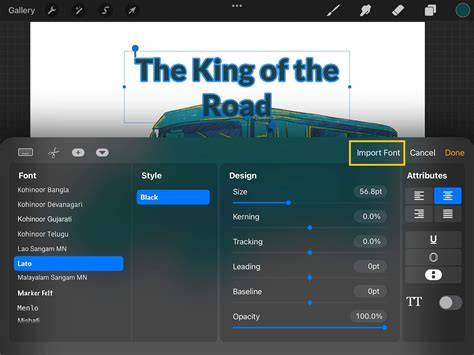
Best Fonts For Procreate Ipad In 2023
As an artist and designer, you need the right tools to perfect your craft. For digital art creation, the Procreate app is one of the most popular tools available. With the Procreate iPad app, you can create amazing digital art pieces with ease. To make your work even more unique and personalized, you can also use fonts. In this article we’ll be taking a look at some of the best Procreate fonts for iPad in 2023.
1. Meraki
Meraki is a beautiful script font that you can use to add a romantic and feminine touch to your artwork. The font is perfect for creating hand-drawn lettering, logos, quotes, and other artwork. Meraki comes with an alternate set of characters, ligatures, and swashes that you can use to add a unique touch to your work. The font also supports multiple languages, so you can easily use it for a wide variety of projects.
2. The Hustle
The Hustle is a bold and modern font that is perfect for creating eye-catching titles and headlines. The font has a unique and elegant style that can add a modern touch to your artwork. The font also has a unique set of characters and ligatures that you can use to customize your work. The font also supports multiple languages, so you can easily use it for a wide variety of projects.
3. Fireflies
Fireflies is a playful and fun font that is perfect for creating fun and whimsical artwork. The font has a unique and quirky style that can add a playful touch to your artwork. The font also has a unique set of characters and ligatures that you can use to customize your work. The font also supports multiple languages, so you can easily use it for a wide variety of projects.
4. Cinder Block
Cinder Block is a bold and modern font that is perfect for creating bold and striking titles and headlines. The font has a unique and edgy style that can add a modern touch to your artwork. The font also has a unique set of characters and ligatures that you can use to customize your work. The font also supports multiple languages, so you can easily use it for a wide variety of projects.
5. Poppins
Poppins is a modern and versatile font that is perfect for creating elegant and sophisticated artwork. The font has a unique and stylish style that can add a modern touch to your artwork. The font also has a unique set of characters and ligatures that you can use to customize your work. The font also supports multiple languages, so you can easily use it for a wide variety of projects.
As you can see, there are many amazing Procreate fonts for iPad in 2023. Each font has its own unique style and features that you can use to customize your artwork. Whether you’re looking for a bold and modern font or a playful and whimsical font, there’s a font that’s perfect for your project. So go ahead and explore the many Procreate fonts available in 2023!